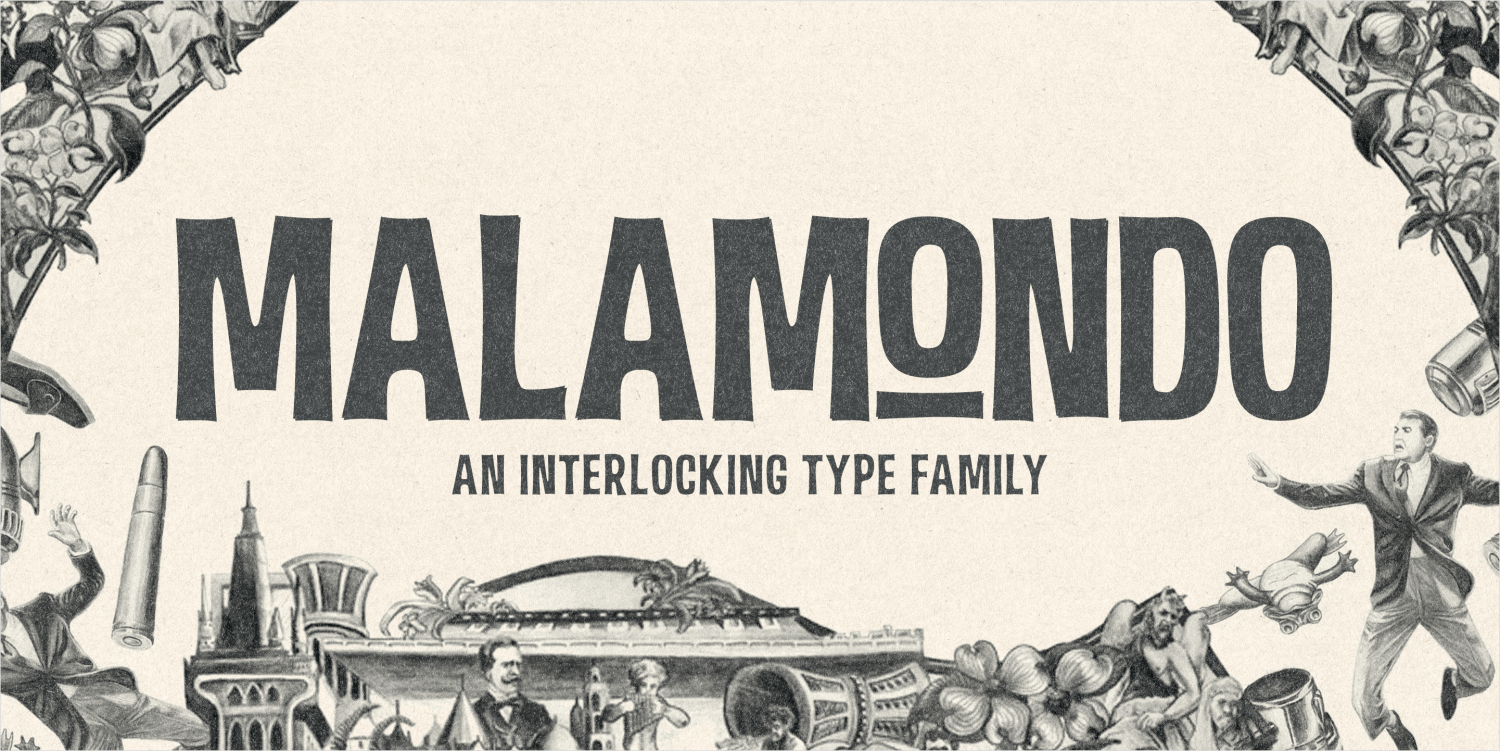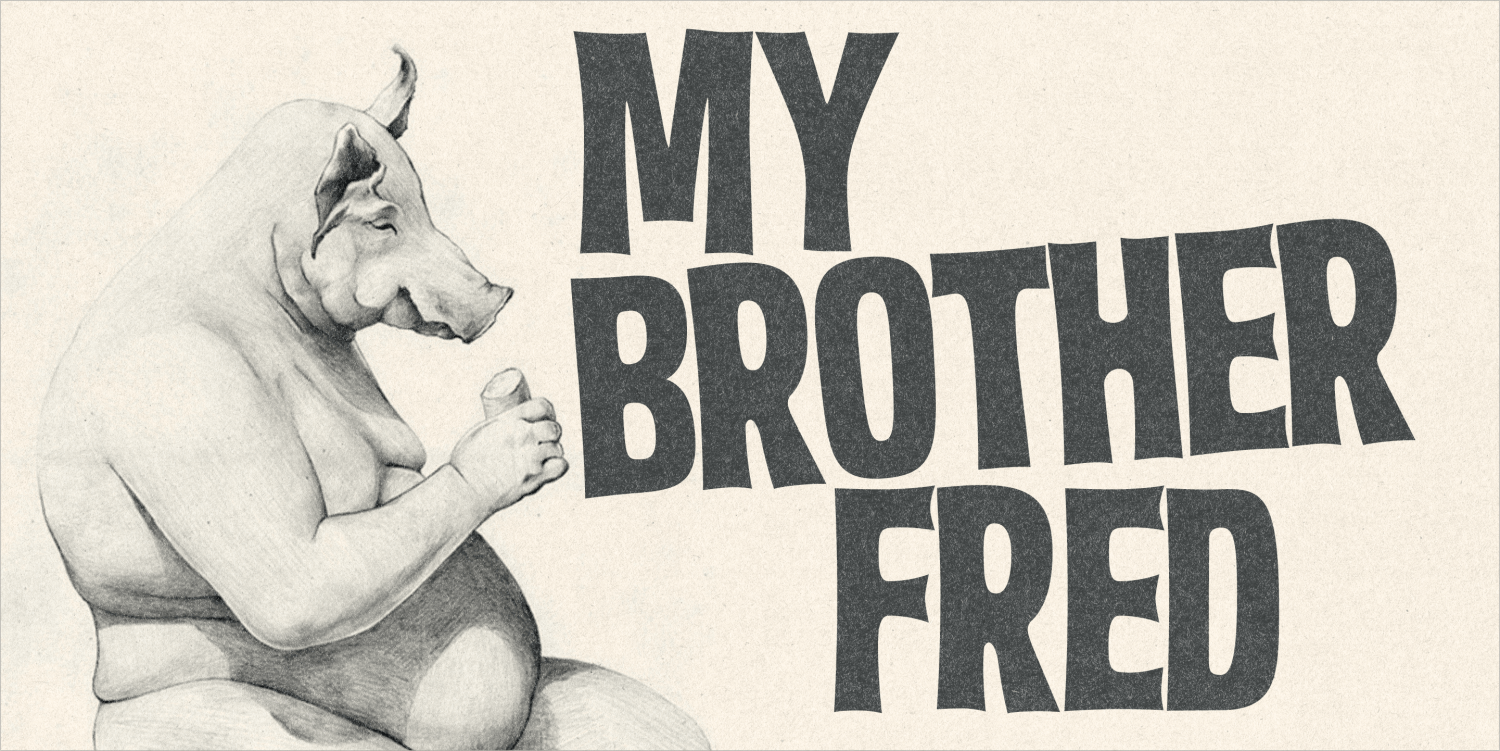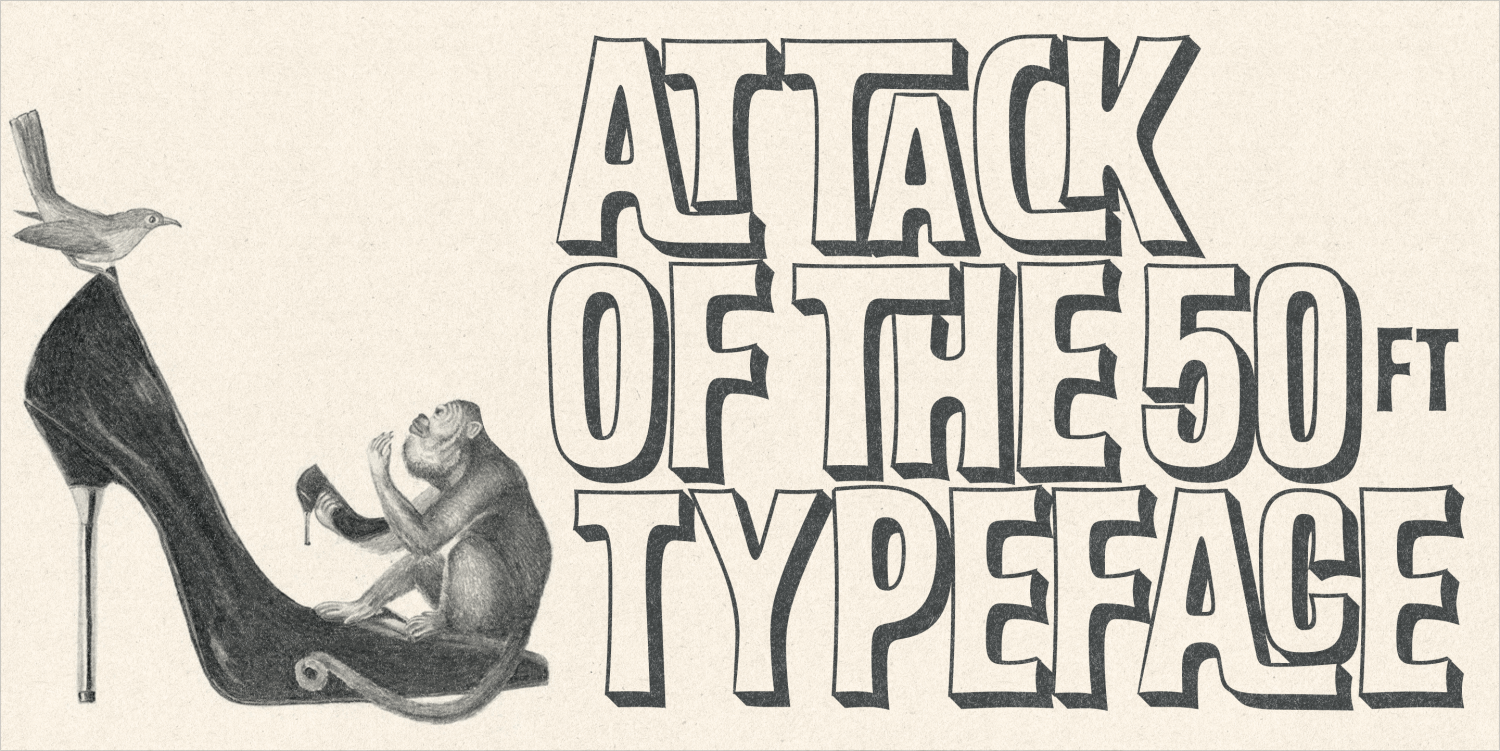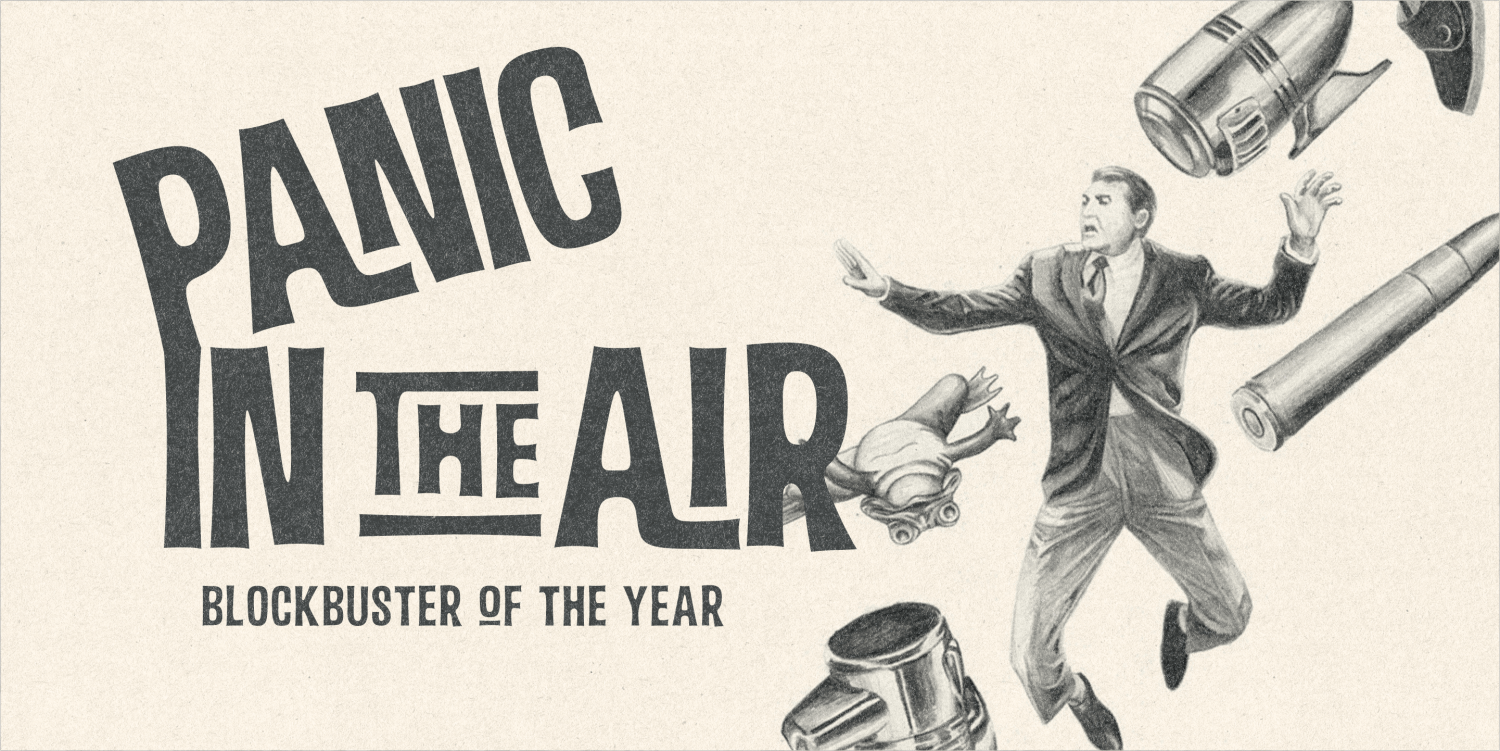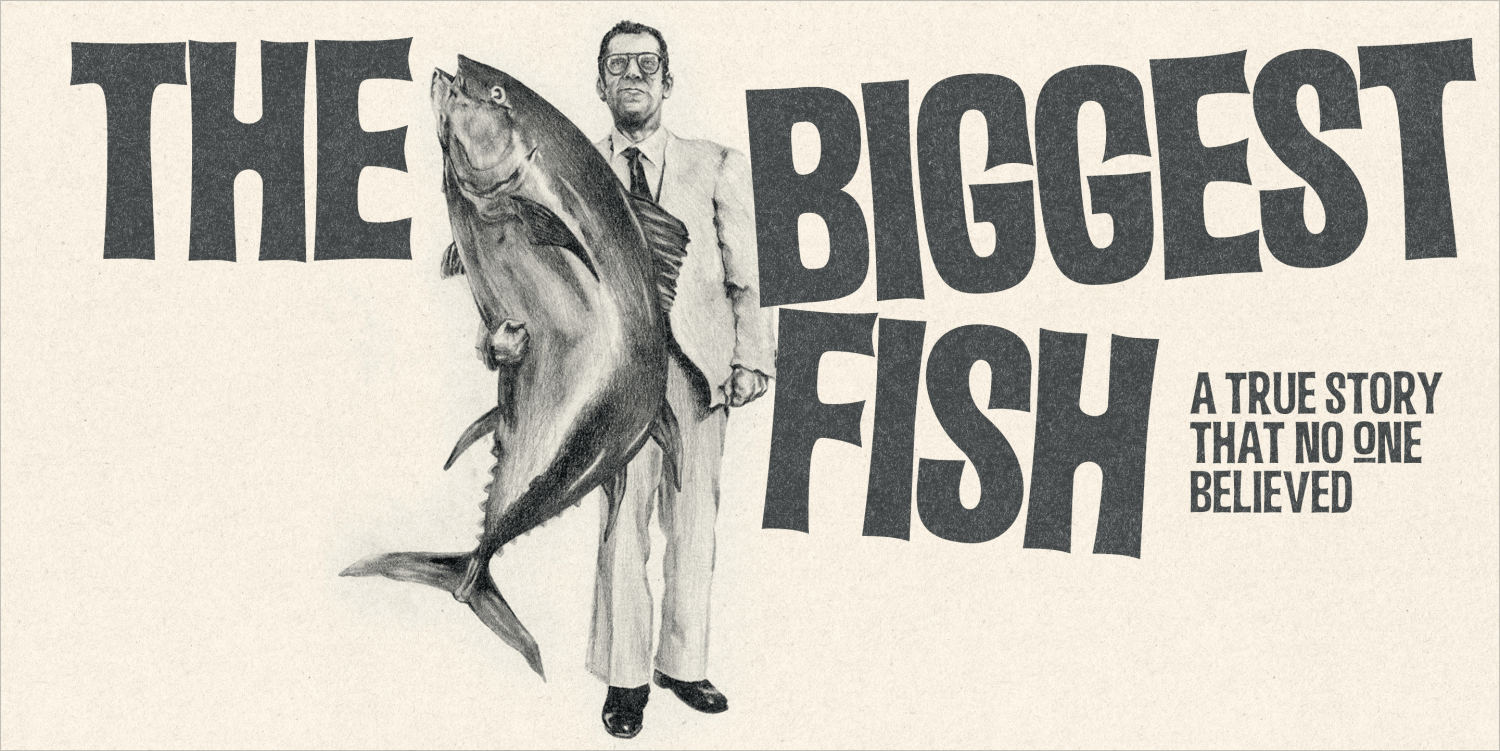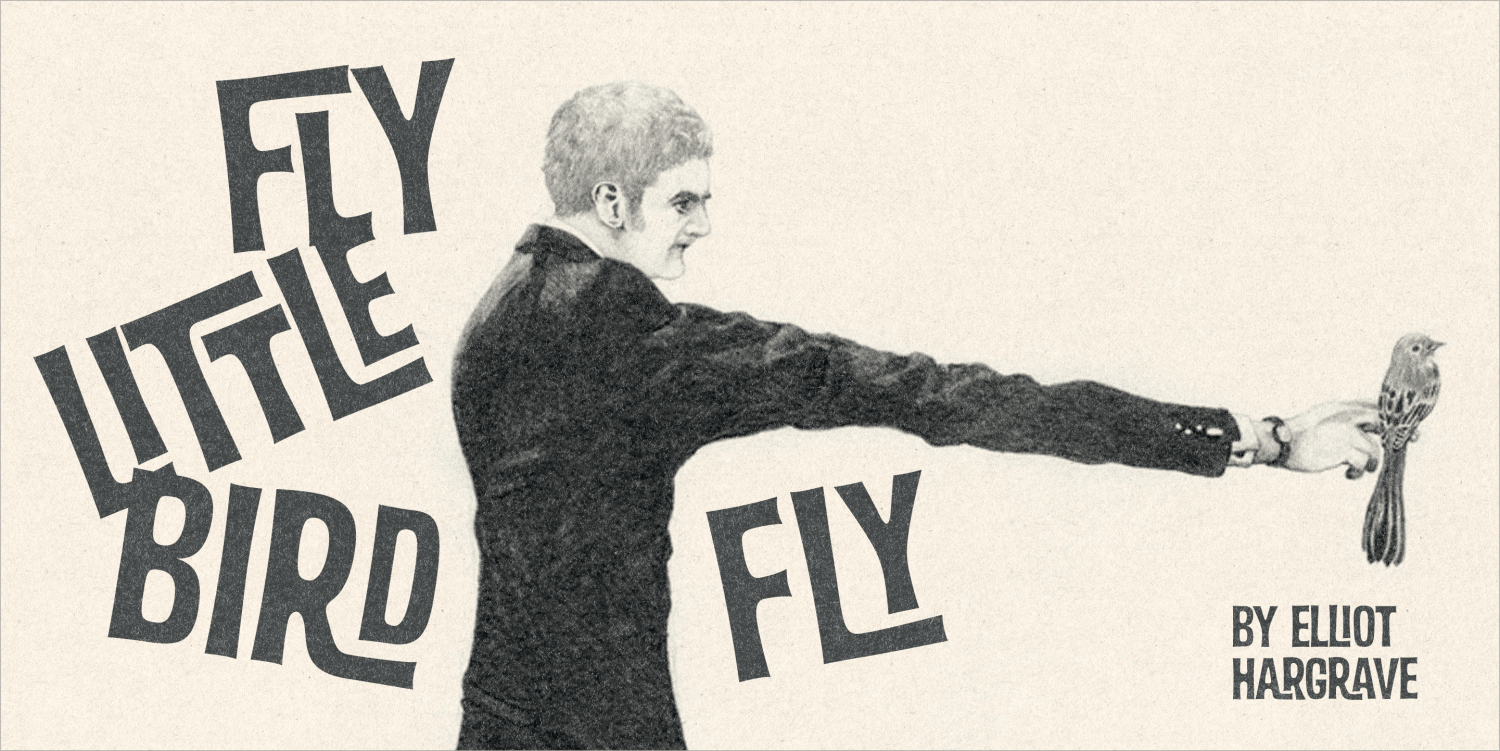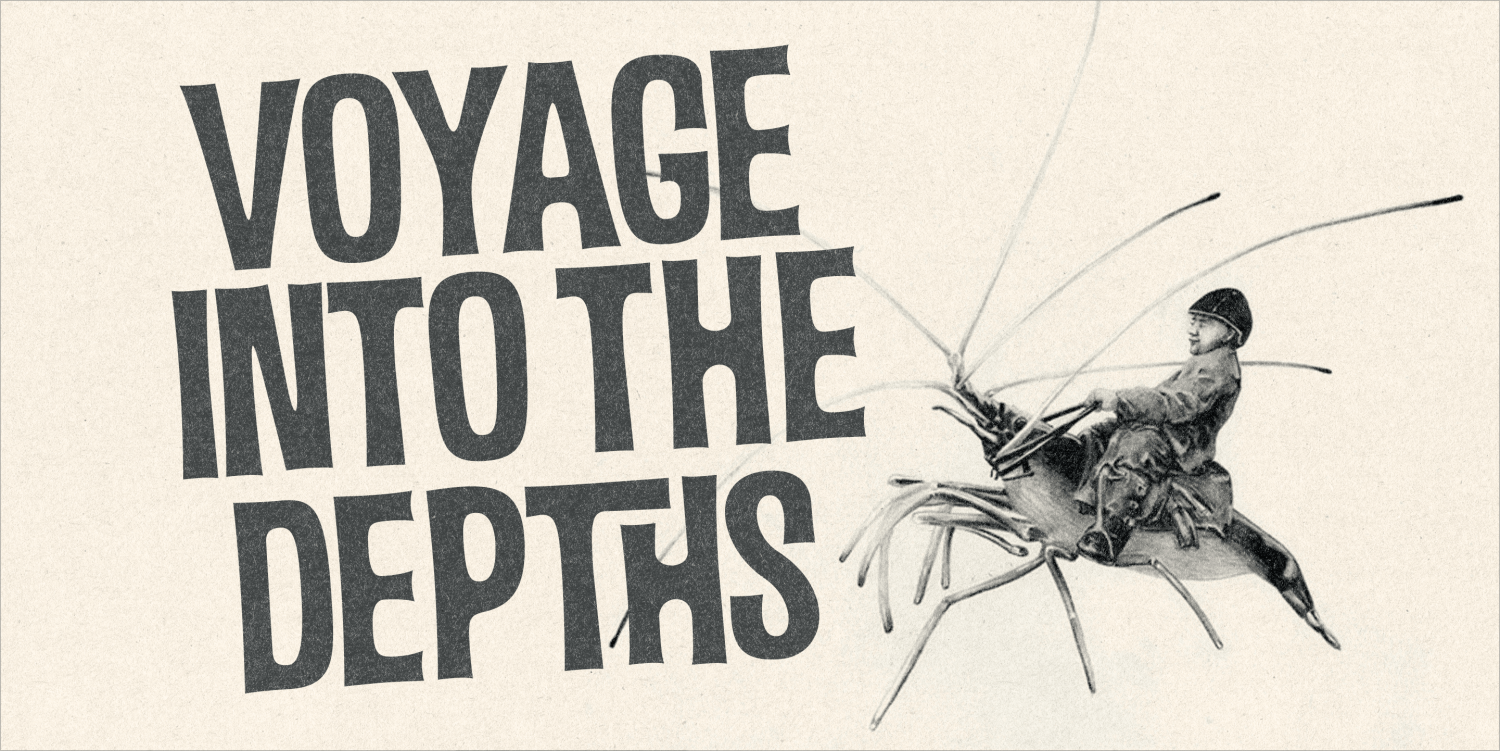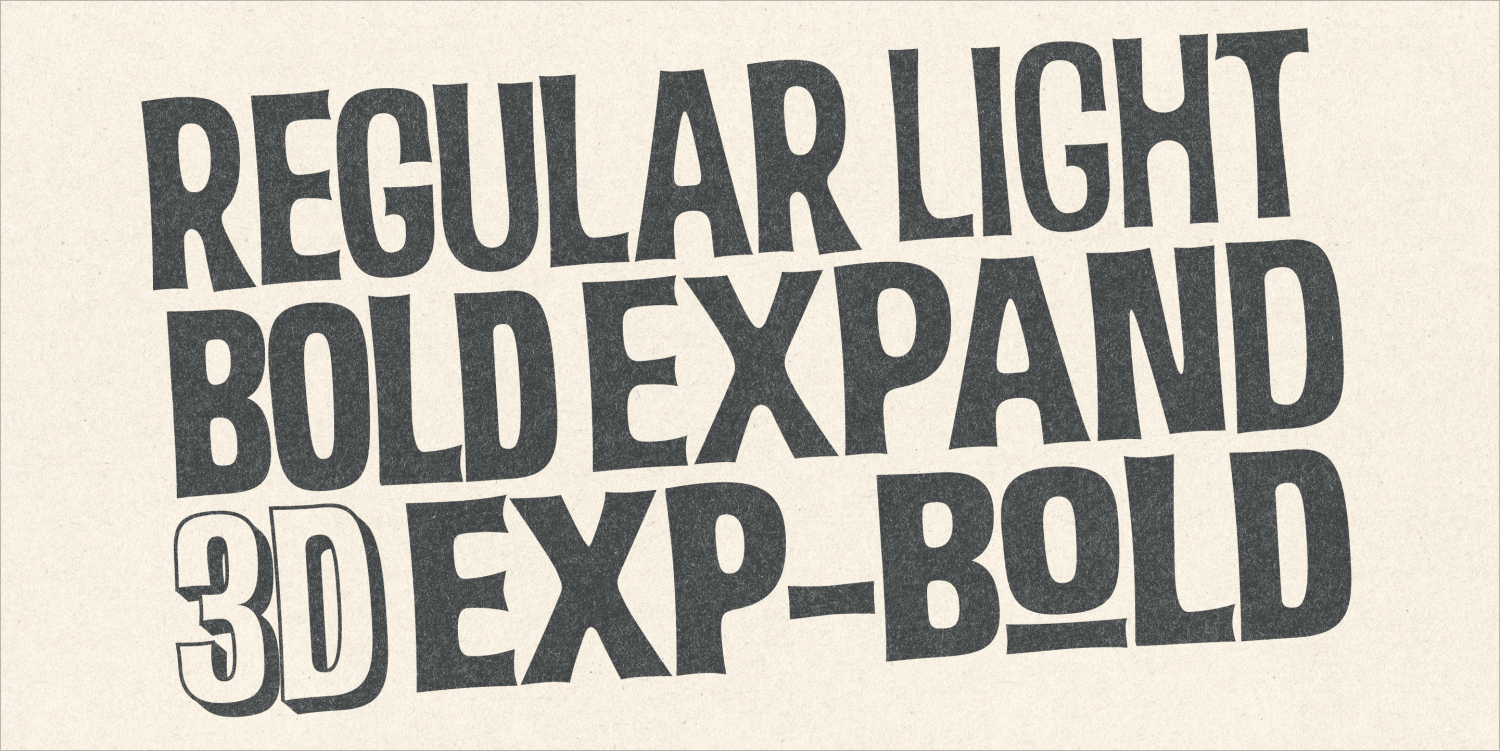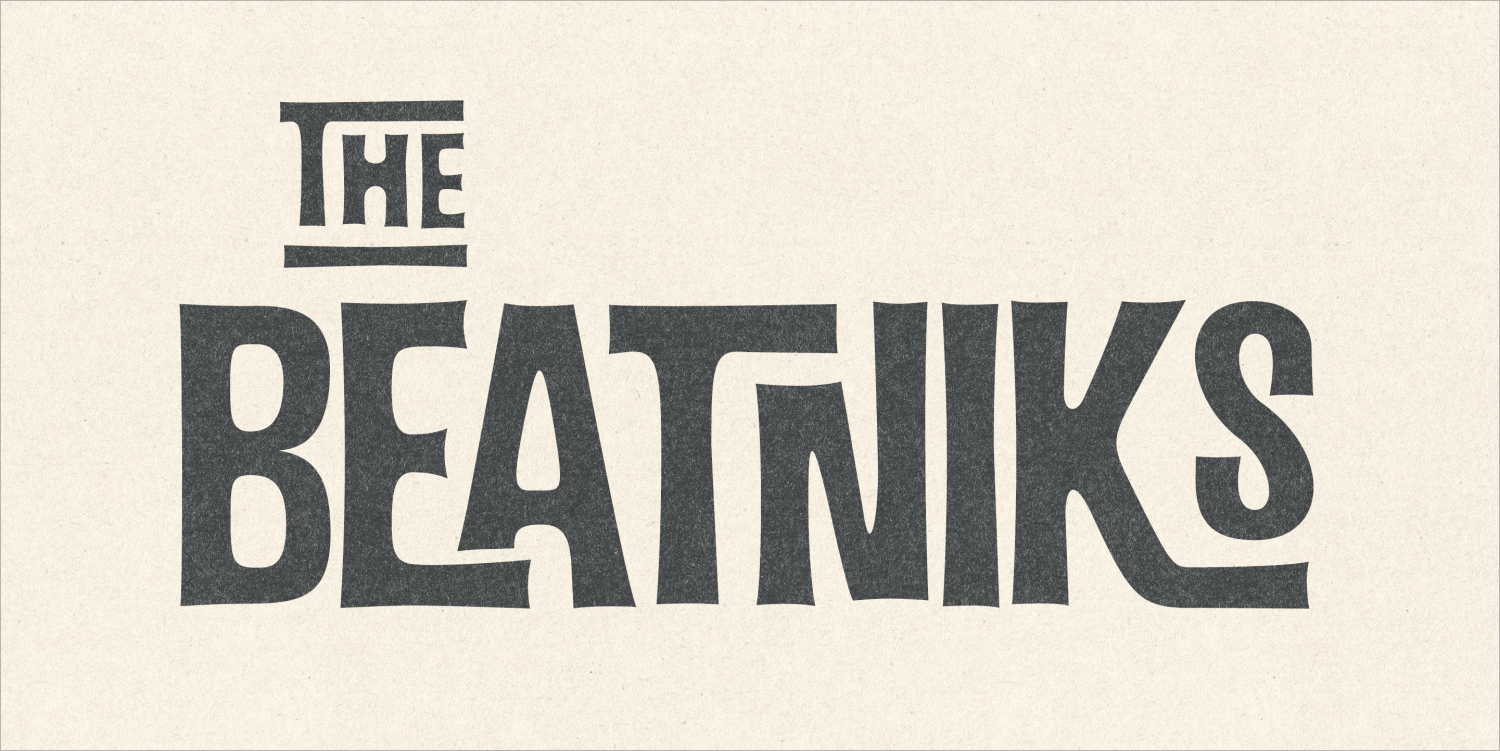
Malamondo
Font Family by Fenotype
Malamondo is a versatile and effective all caps display font. Each version has 200 interlock ligatures that will help you to create custom looking designs. To access the ligatures you only need to write in CAPS in any Opentype supporting program.